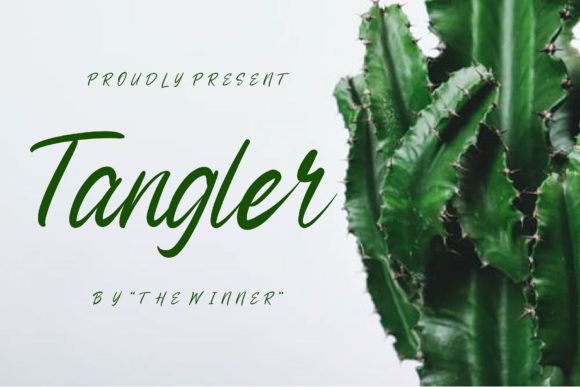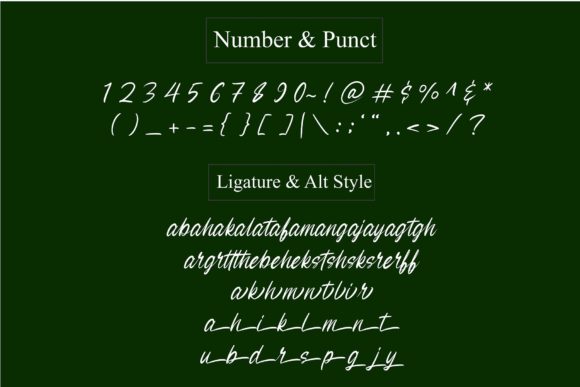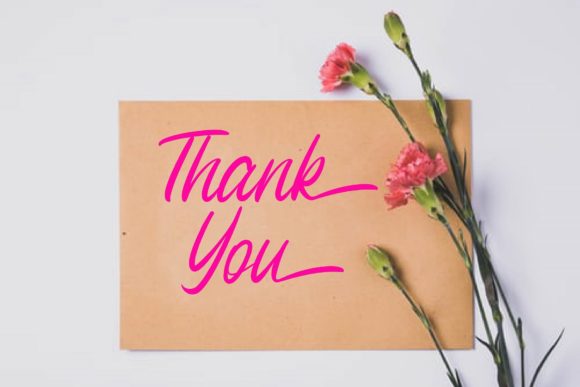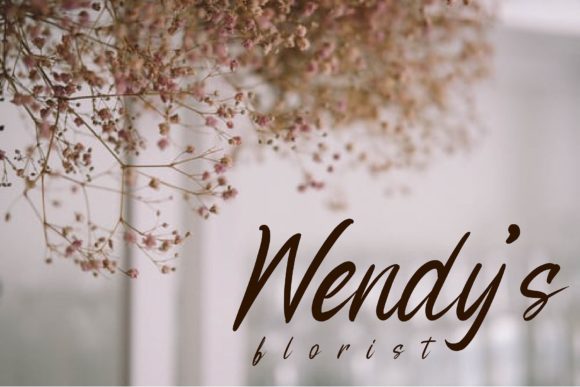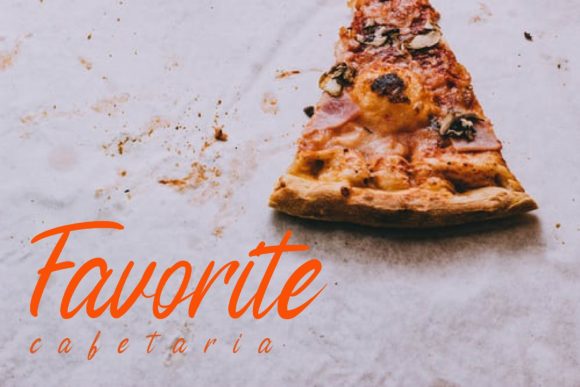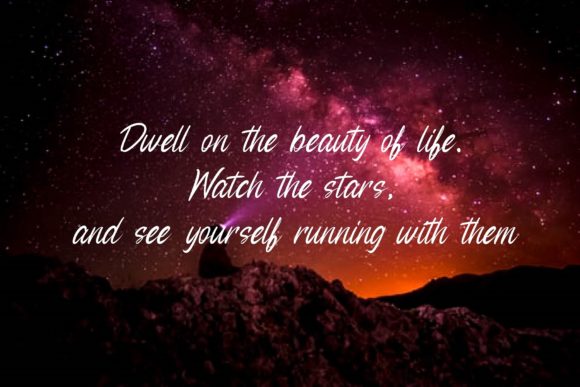
Tangler Font
About Tangler Font
Tangler is a relaxed and casual handwritten font. Add this paint brushed font to your favorite creations and notice how easily they are elevated.